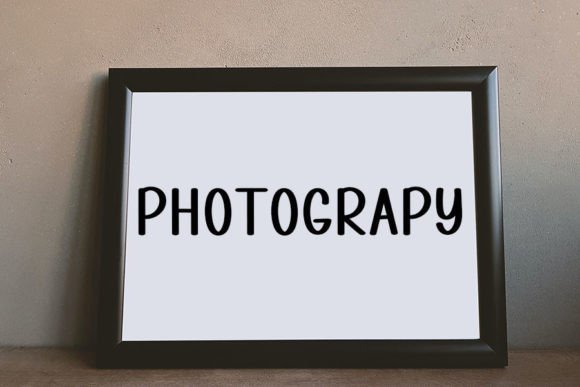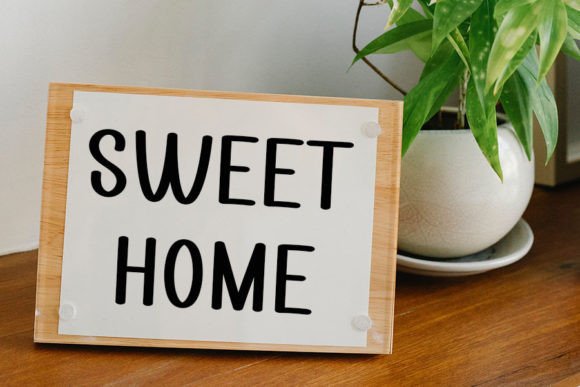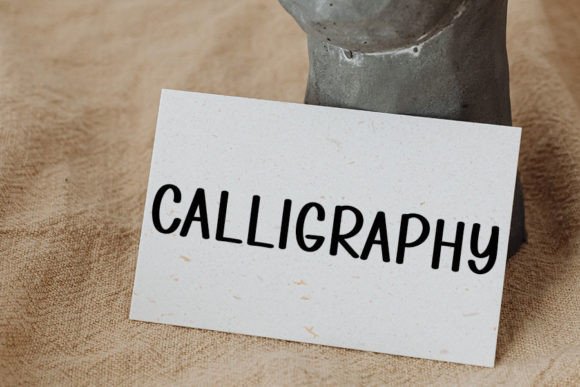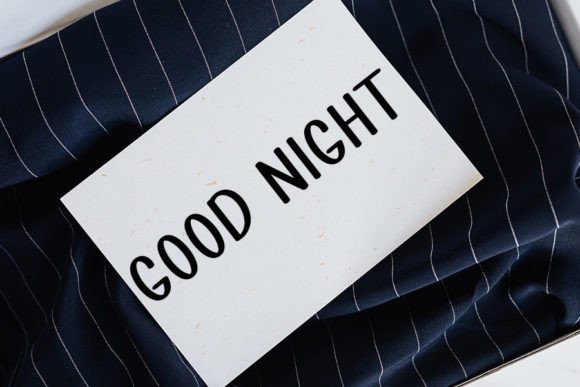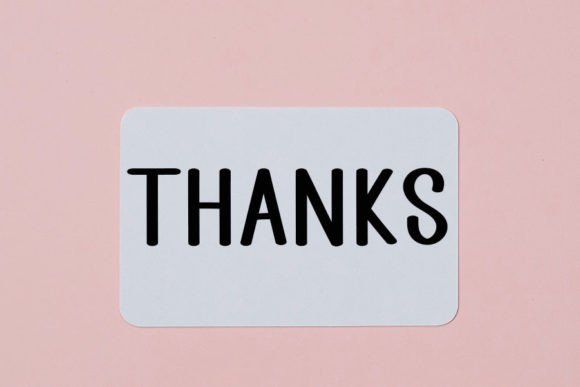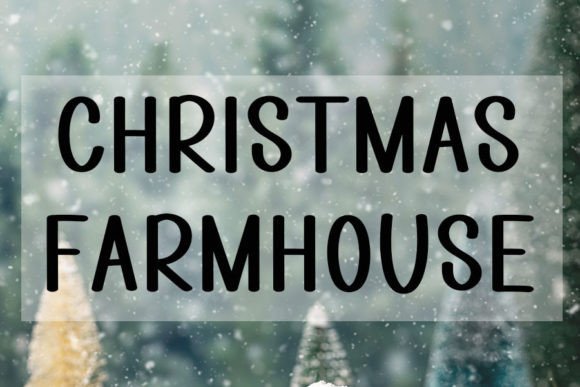
Introducing Christmas Farmhouse Font: The Perfect Handwritten Font for Your Holiday Projects
Are you looking for a font that can add a personal touch to your holiday crafts, digital designs, and greeting cards? Look no further than Christmas Farmhouse Font! This simple and friendly handwritten font is perfect for designers and crafters who want to create beautiful and festive projects for the holiday season.
What Makes Christmas Farmhouse Font So Special?
Christmas Farmhouse Font is a unique and versatile font that can be used for a variety of projects. Its handwritten style gives it a warm and cozy feel, making it perfect for holiday-themed crafts, digital designs, and greeting cards. Whether you’re creating a Christmas card, a holiday party invitation, or a festive digital design, this font is sure to become your go-to choice.
Key Features of Christmas Farmhouse Font
• Simple and Friendly: Christmas Farmhouse Font has a simple and friendly design that makes it easy to read and use.
• Handwritten Style: The font’s handwritten style gives it a personal and cozy feel that’s perfect for holiday projects.
• Versatile: Christmas Farmhouse Font can be used for a variety of projects, including crafts, digital designs, presentations, and greeting cards.
Why Designers and Crafters Love Christmas Farmhouse Font
Designers and crafters love Christmas Farmhouse Font because of its versatility and ease of use. The font’s simple and friendly design makes it perfect for creating a variety of holiday projects, from Christmas cards and invitations to festive digital designs and crafts. Additionally, the font’s handwritten style gives it a personal touch that makes it stand out from other fonts.
Ideas for Using Christmas Farmhouse Font
Here are some ideas for using Christmas Farmhouse Font in your holiday projects:
• Christmas Cards: Use Christmas Farmhouse Font to create personalized and festive Christmas cards for your loved ones.
• Holiday Invitations: Create festive holiday invitations using Christmas Farmhouse Font and make your party or event stand out.
• Digital Designs: Use Christmas Farmhouse Font to create festive digital designs, such as holiday-themed social media graphics and blog posts.
• Crafts: Use Christmas Farmhouse Font to create festive crafts, such as holiday-themed signs, decorations, and gifts.
Tips for Getting the Most Out of Christmas Farmhouse Font
Here are some tips for getting the most out of Christmas Farmhouse Font:
• Experiment with Different Sizes: Experiment with different font sizes to find the perfect size for your project.
• Pair with Other Fonts: Pair Christmas Farmhouse Font with other fonts to create a unique and interesting design.
• Use in Combination with Images: Use Christmas Farmhouse Font in combination with images to create a festive and eye-catching design.